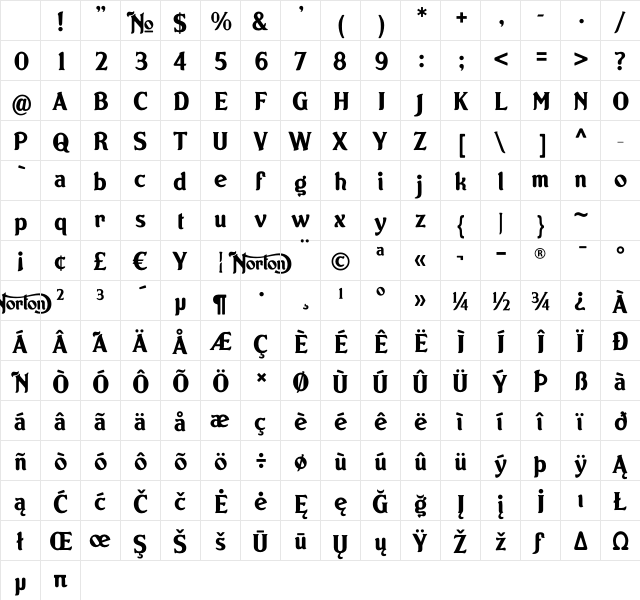
Norton Regular
Copyright: Norton (version 1.01) by Keith Bates K‐Type Freebie 2006 • www.k‐type.com • keith@k‐type.com • Based on the five characters of the famous Norton Motorcycle logo.
Design Context for Norton
Norton is a composed and adaptable typeface that performs quietly and consistently across a wide range of design contexts.